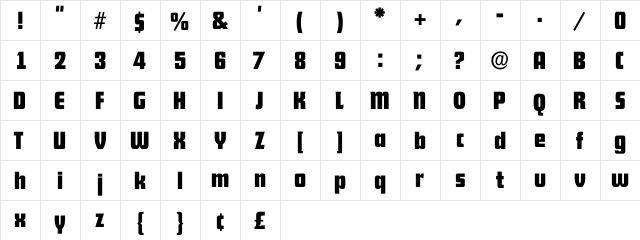
Futana Regular
Design Context for Futana Typeface
Futana is a composed and adaptable typeface that performs quietly and consistently across a wide range of design contexts.